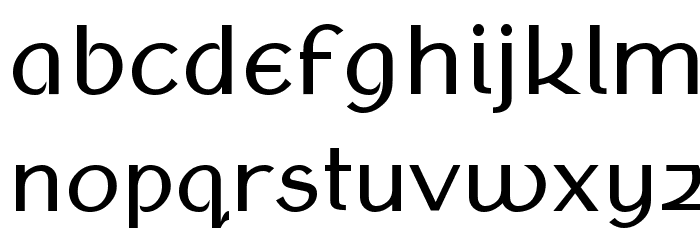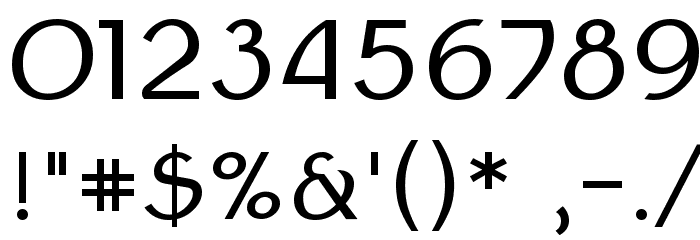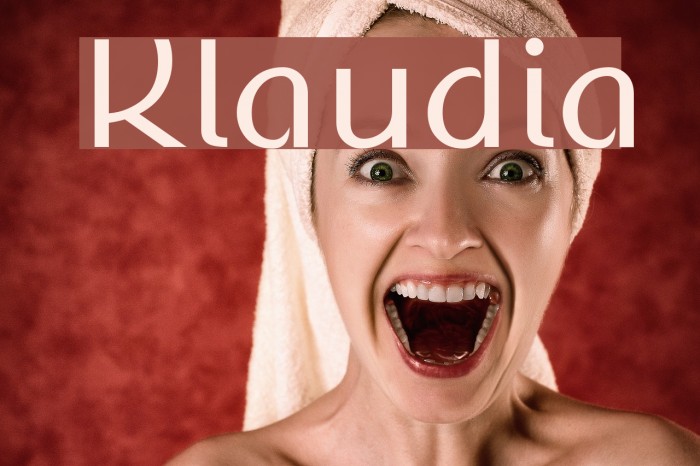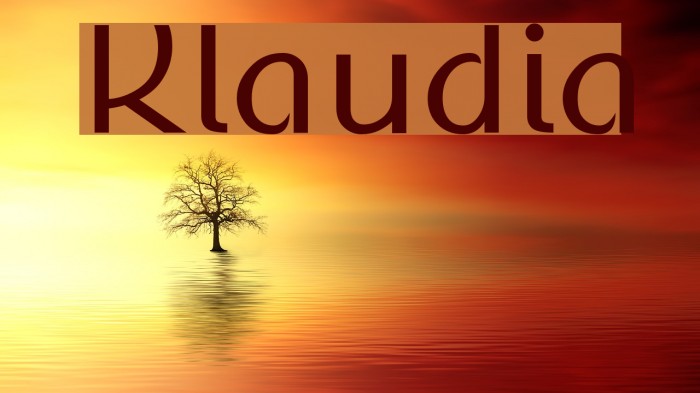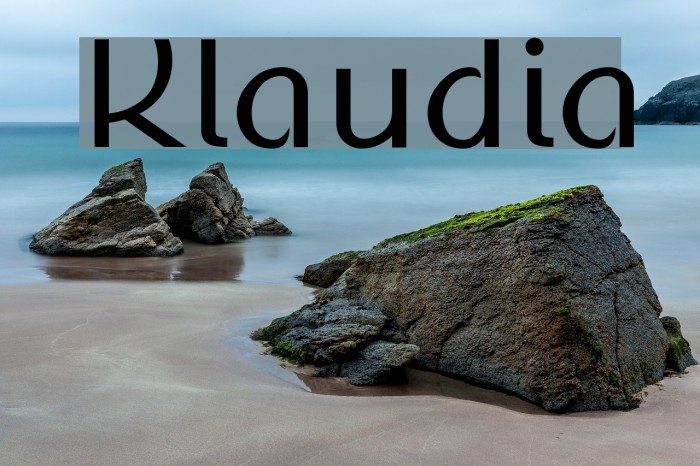
Klaudia Font
This font features a clean and modern aesthetic with a geometric influence, characterized by its smooth curves and balanced proportions. The uppercase letters are bold and assertive, while the lowercase letters maintain a friendly and approachable feel. The numerals are clear and easy to read, making them suitable for a variety of applications. Special characters are well-integrated, maintaining the overall style and coherence of the font. The design is versatile, offering a contemporary look that can be used in both digital and print media.
A modern, geometric font with smooth curves and balanced proportions.
- Proposed Projects: Ideal for branding, advertising, web design, and editorial layouts.